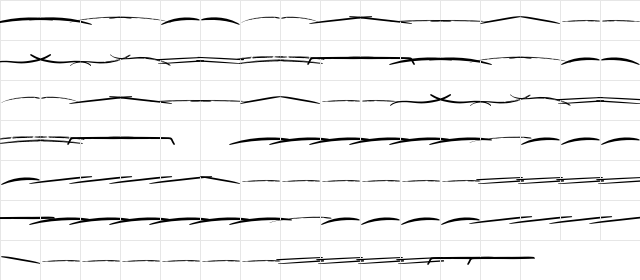
Gladyss Extras
Design Context for Gladyss Typeface
Gladyss is a composed and adaptable typeface that performs quietly and consistently across a wide range of design contexts.